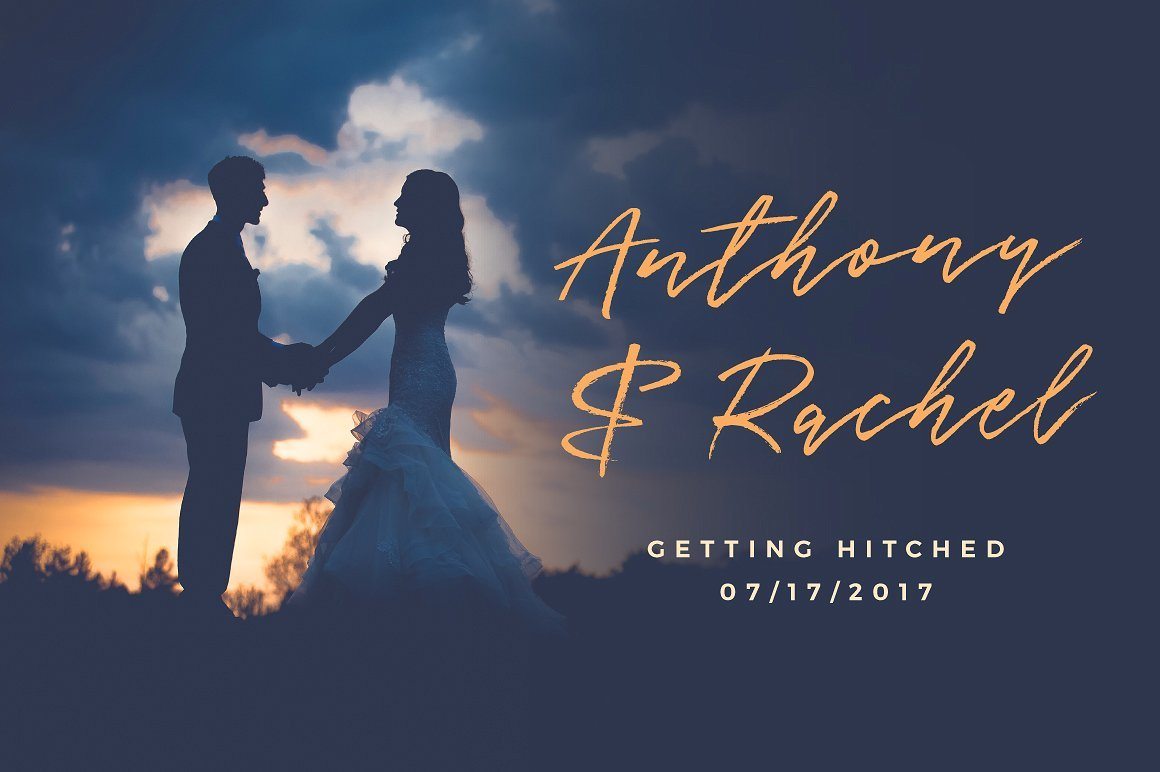
Free Riverside Avenue Script Font
Free riverside avenue – script font for graphic designers that need to present their work in a professional way. This font file was found from the amazing source called Pixelify. Showcase your designs like a graphic design pro by adding a new touch with this beautiful font.